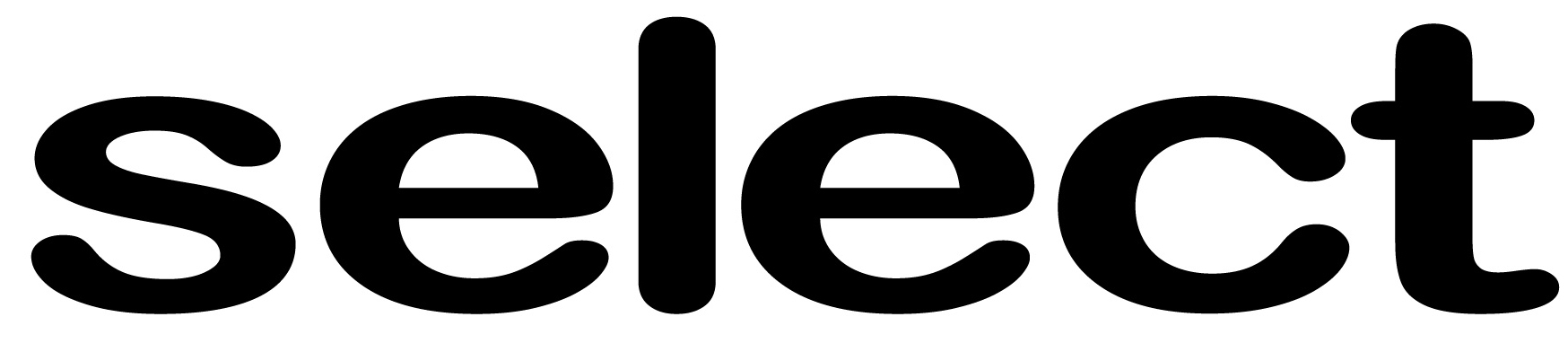
Anyone recongise this font?
His link simply was the search results on that site, none of which actually match the font you posted (I used your image and did a search there myself). Neat site though!
Yeah none of those are rounded. It reminds me of the font used by TBS, but I don't know the name of the font.
Edit: Which appears to be very similar to Arial Rounded.
I've also noticed that none of the search results is a 100% match, but it's going to be quite difficult to find the exact font unless someone is using it or has stumbled upon it.
The font is Arial Rounded MT Bold (at around 500pt). And it's horribly transformed.. I would recommend you not doing that because the example you gave is really ugly.
That's just quickly thrown together and wasn't transformed exactly like it but you can see it's the same.
Here is the s and e overlayed and transformed exactly like it.. The se shadow underneath is the original image you linked in the OP.